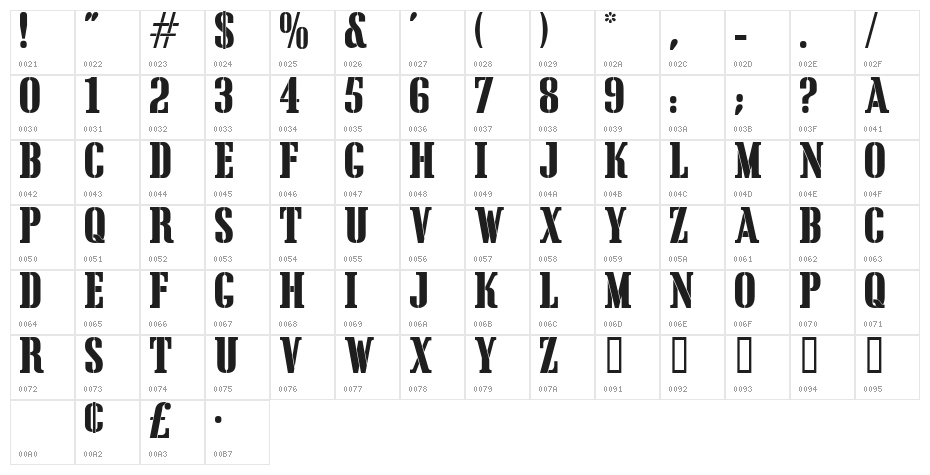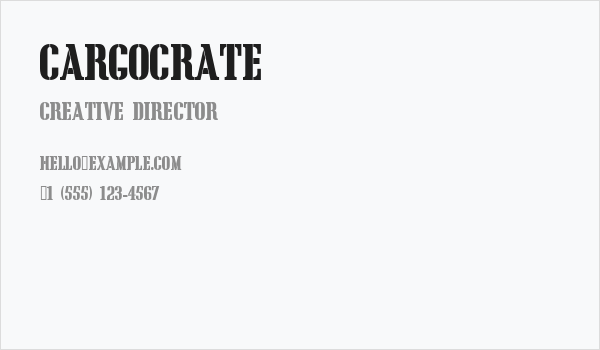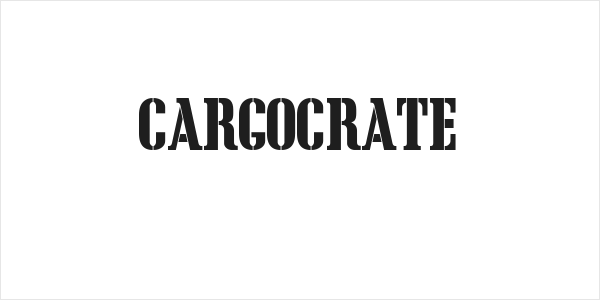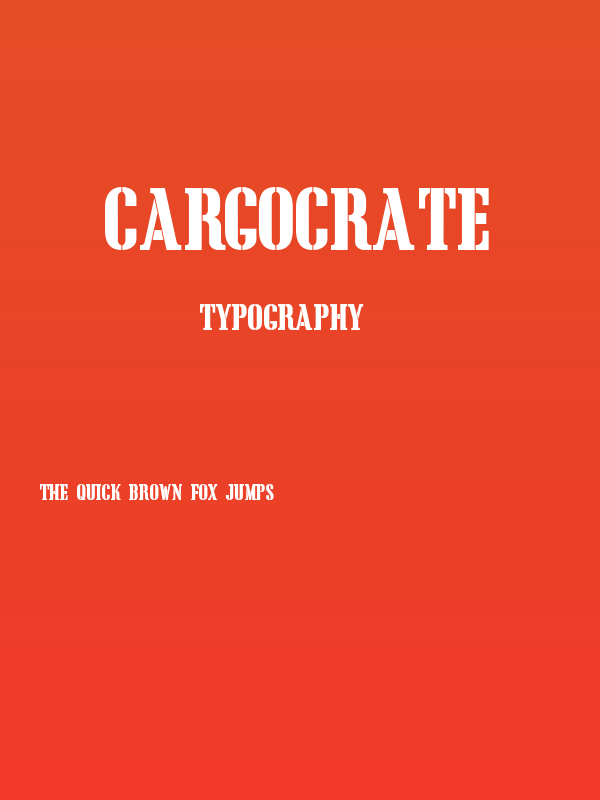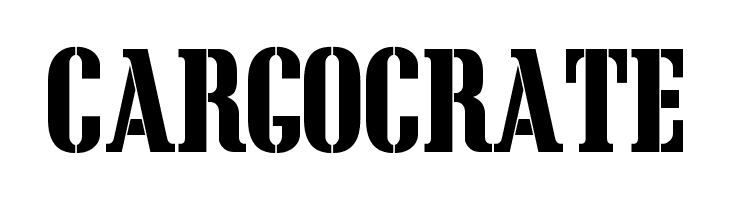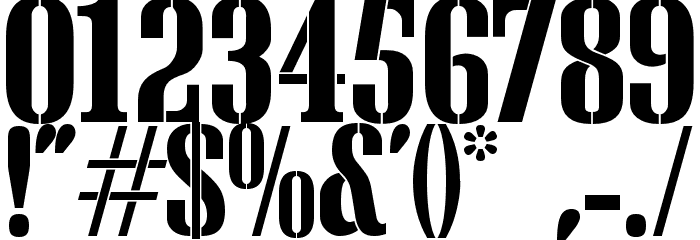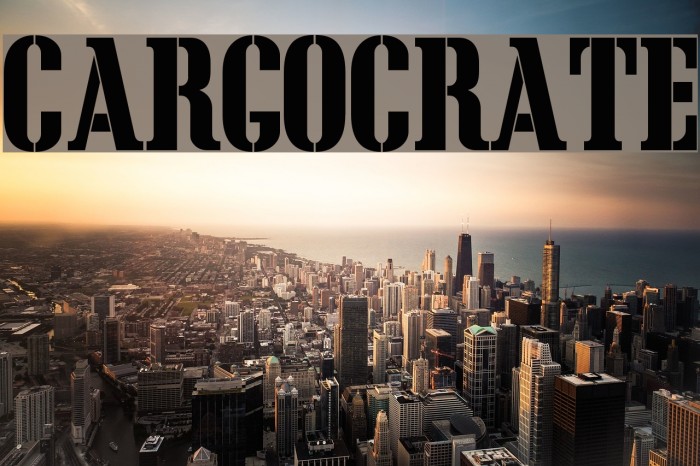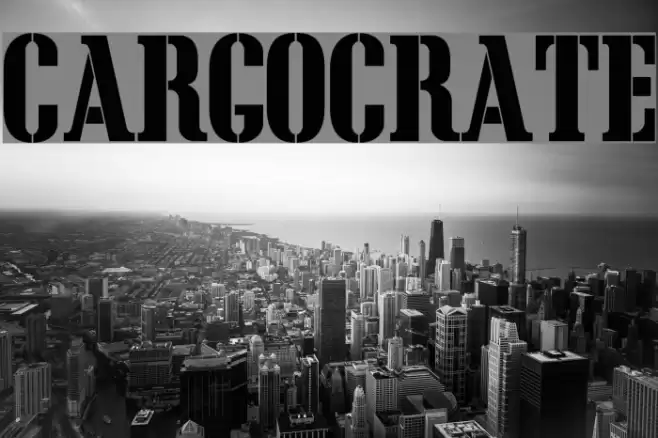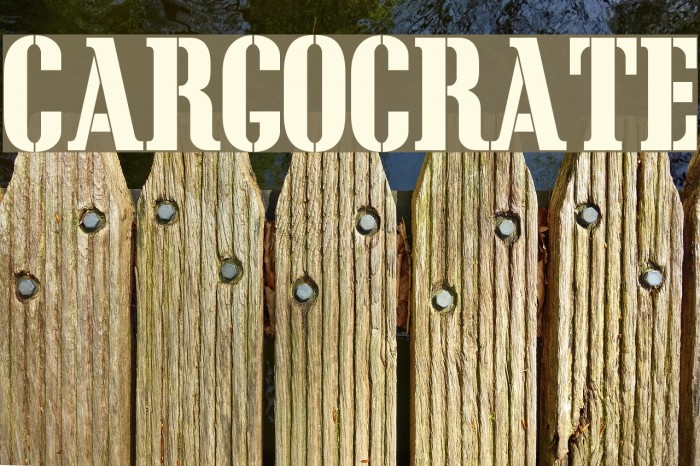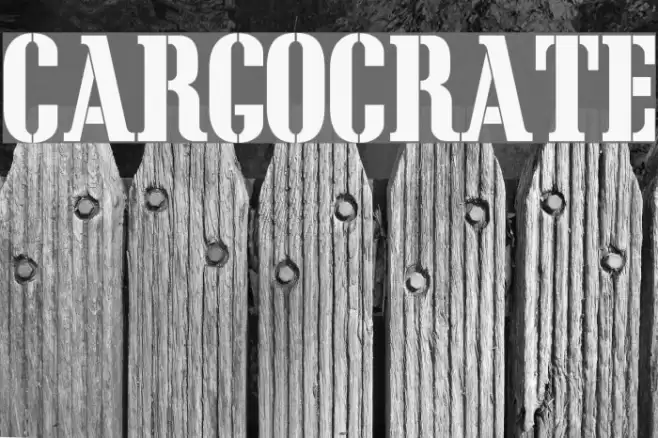
CargoCrate Font
CargoCrate Description
This font exhibits a bold and impactful design, characterized by its strong slab serif style. The letters are robust and commanding, with thick strokes and minimal contrast, creating a powerful visual presence. The uppercase and lowercase letters maintain a consistent width, contributing to a uniform appearance. The numerals are equally bold, ensuring readability and emphasis. Special characters are designed with the same boldness, making them stand out effectively. This font's overall style is reminiscent of vintage and industrial themes, making it suitable for projects that require a strong and assertive typeface.
| Overall Style | Vintage, Industrial |
| Proposed Projects | Ideal for posters, branding, packaging, and signage that require a strong, vintage aesthetic. |